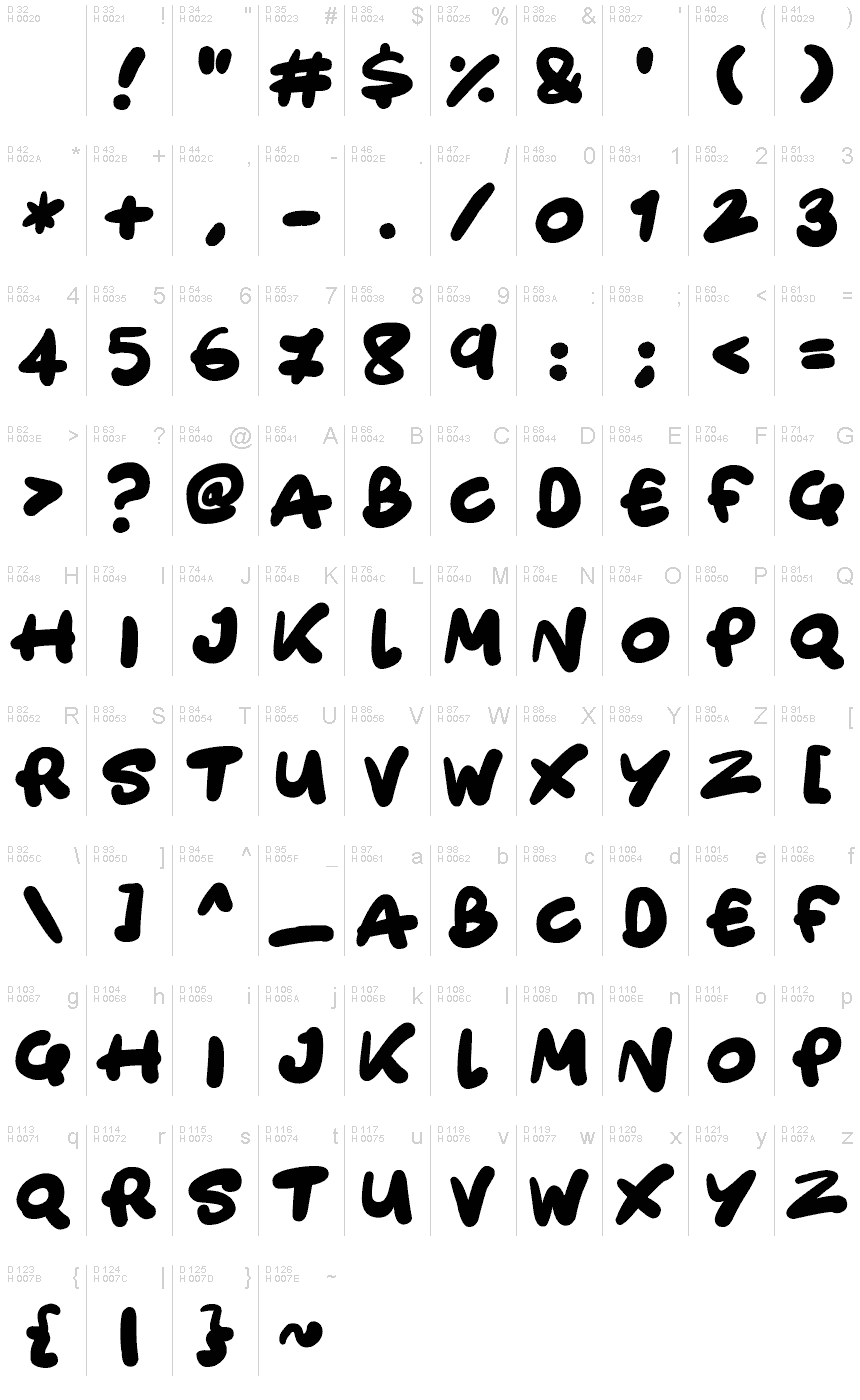
Only Organic
"Only Organic" is a bold, playful display font that exudes a whimsical, cartoon-like charm. Designed by Hawtpixel, this font boasts a distinctive organic form, with rounded edges and an almost hand-drawn aesthetic.
Its robust, confident strokes lend an eye-catching presence, making it an ideal choice for attention-grabbing headlines, logo designs, and multimedia applications. The font's versatility allows it to seamlessly transition between playful, spirited contexts and more modern, minimalist design styles.
Its unique character and vibrant personality make "Only Organic" a standout option for designers seeking to infuse their work with a touch of quirky, approachable flair.